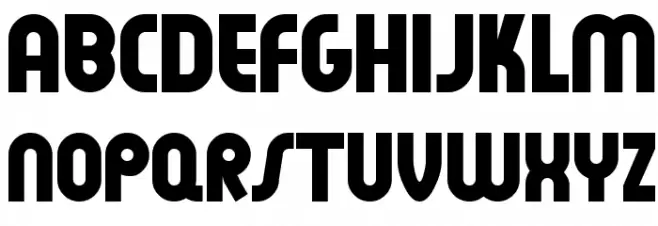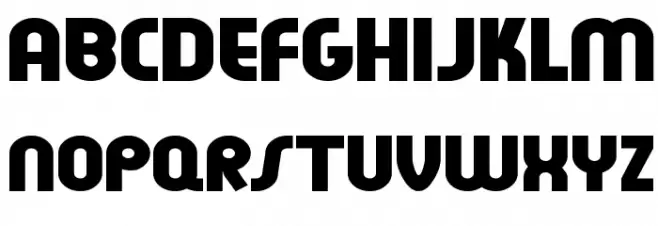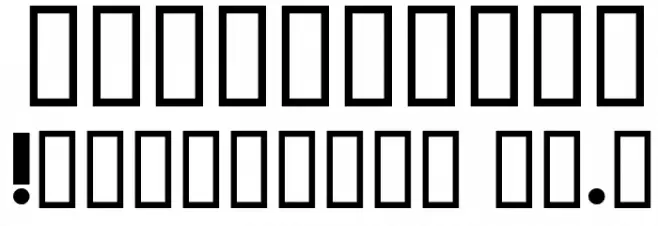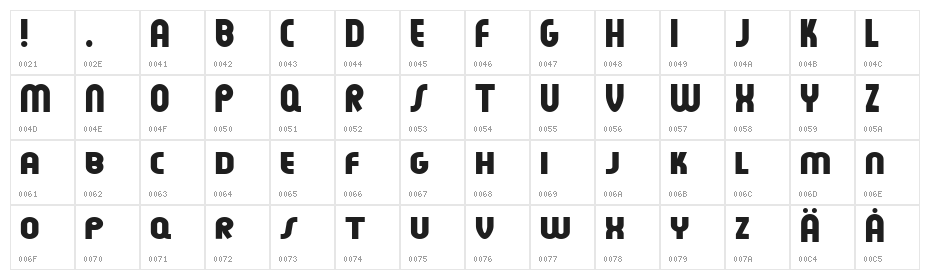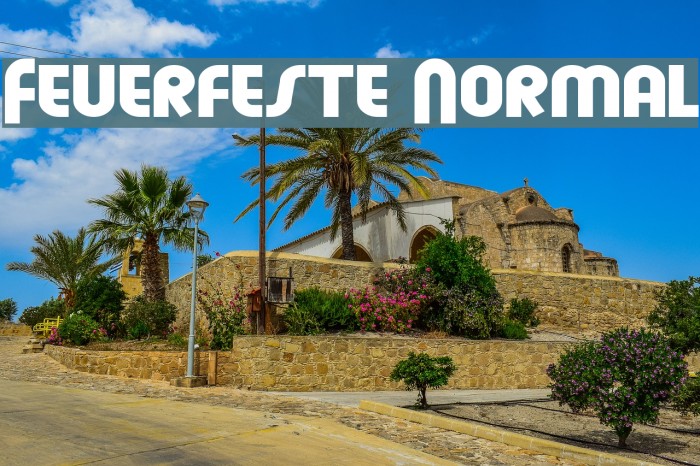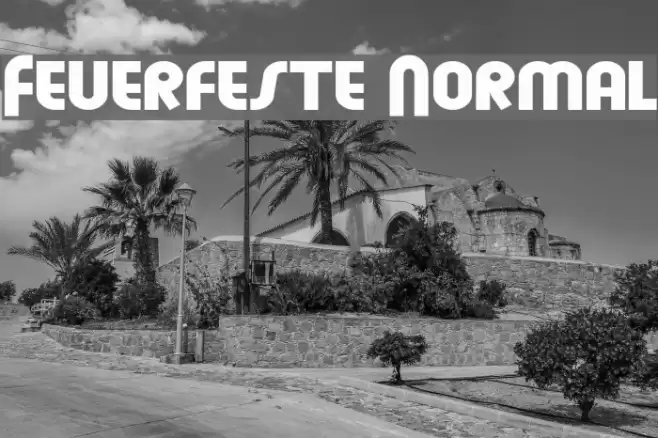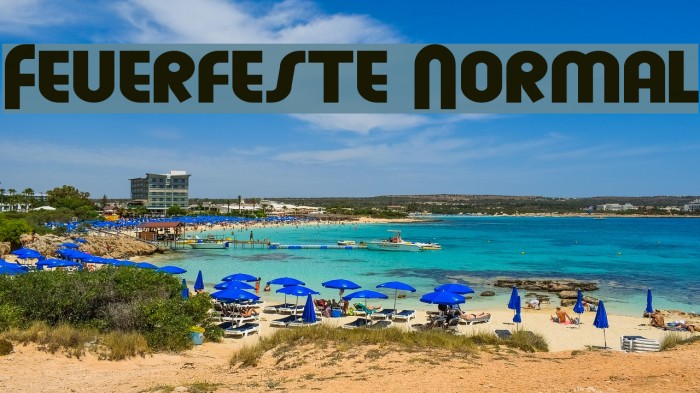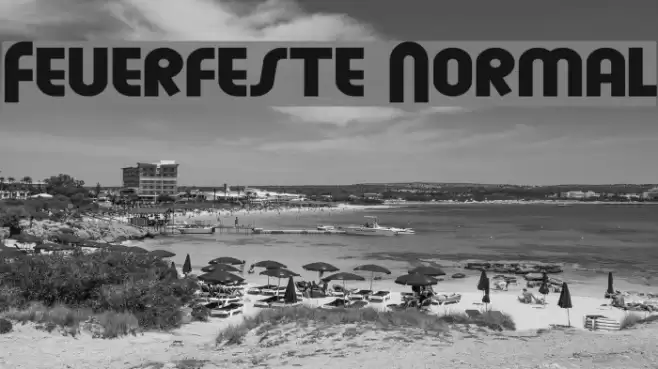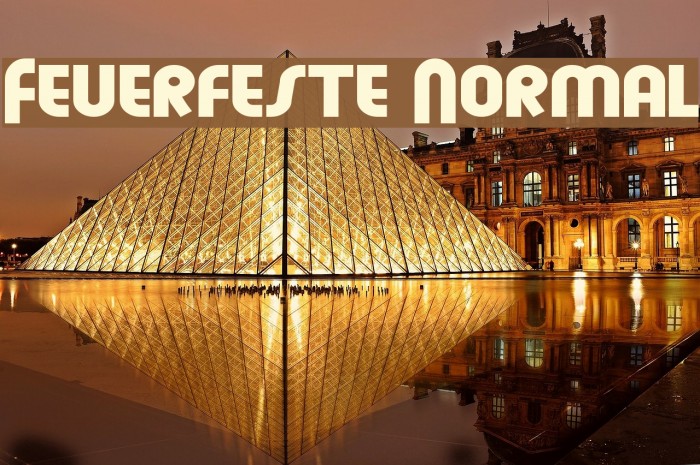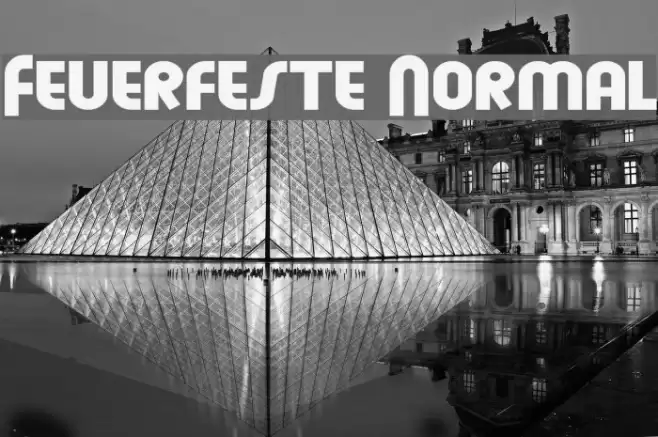
Feuerfeste Normal Font
Based on the text from a german coffee box. Later I noticed that there already was a font looking like this, but I don't know t